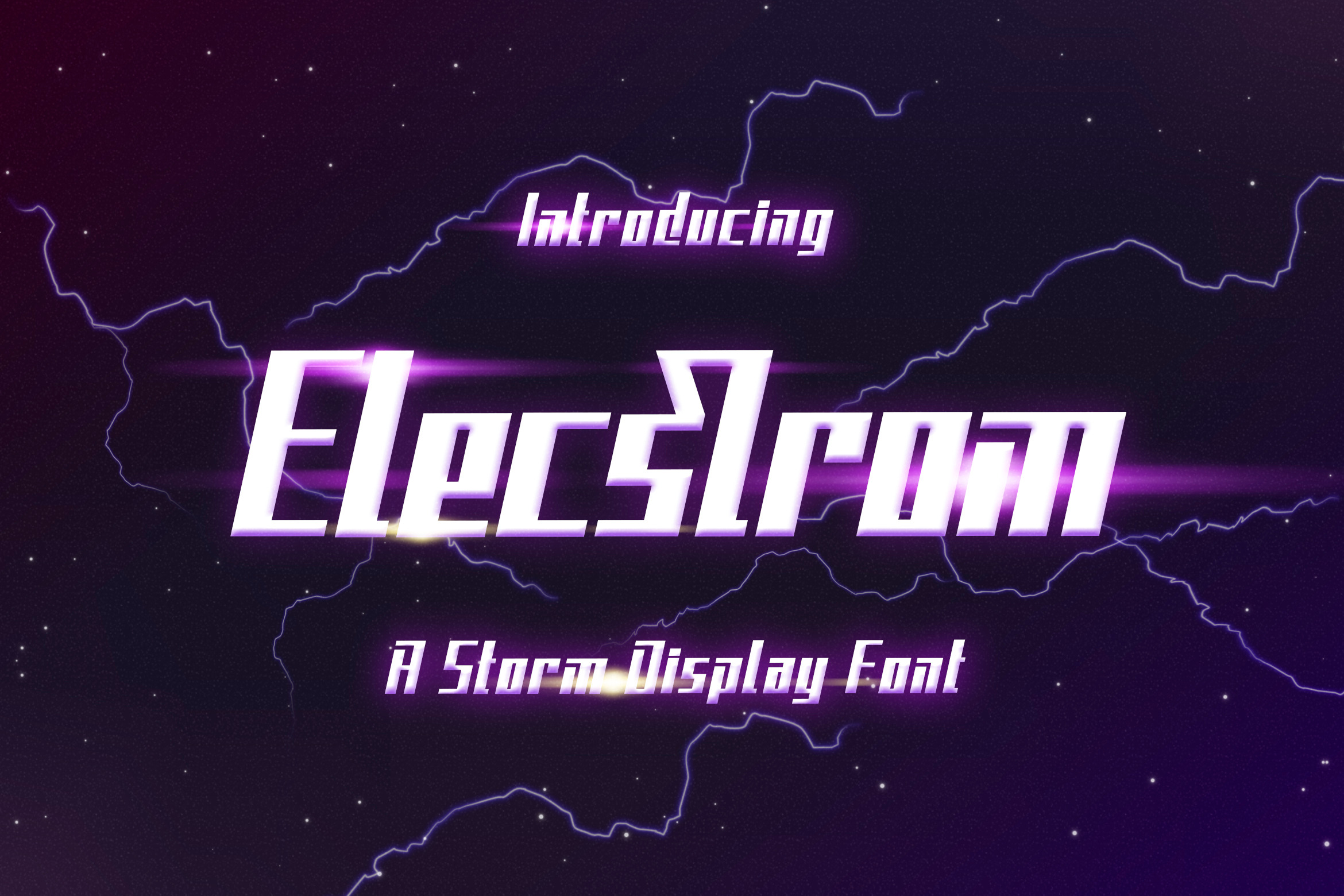
Elecstrom - Storm Display Font
Elecstrom is a storm display font. Elecstrom has a bad weather feels so it has thrilling yet cool experience. Elecstrom is perfect for product cover, signpost, cover album, movie with disaster theme, game, and many more!